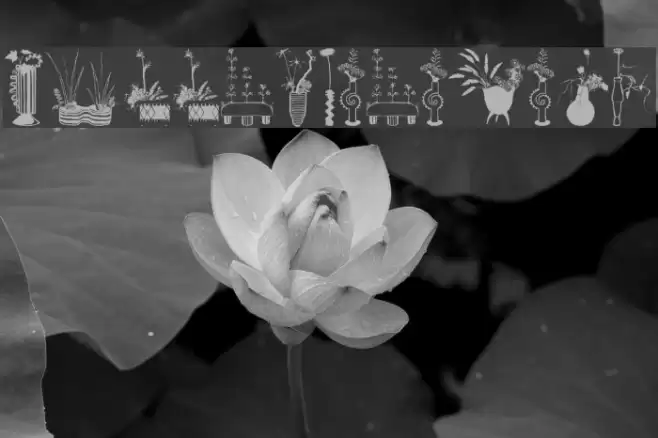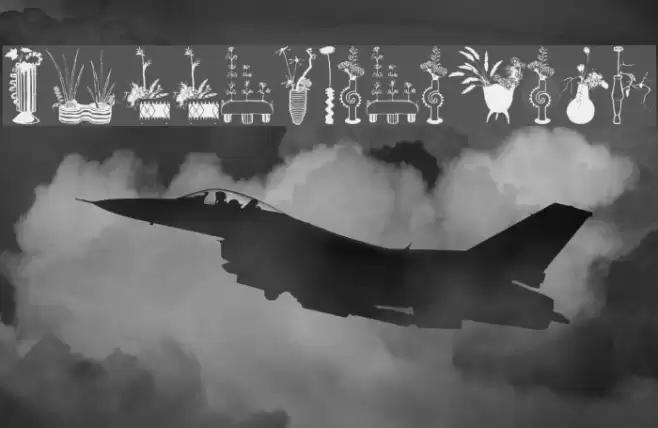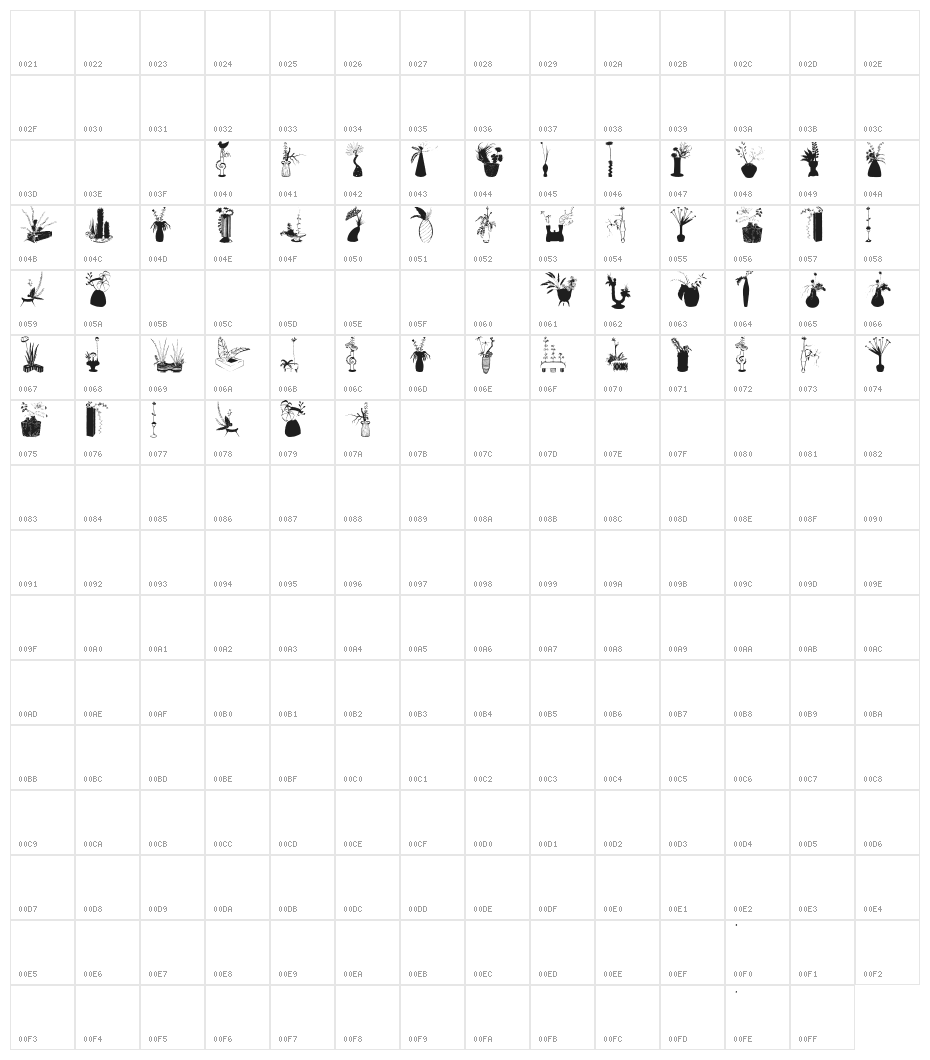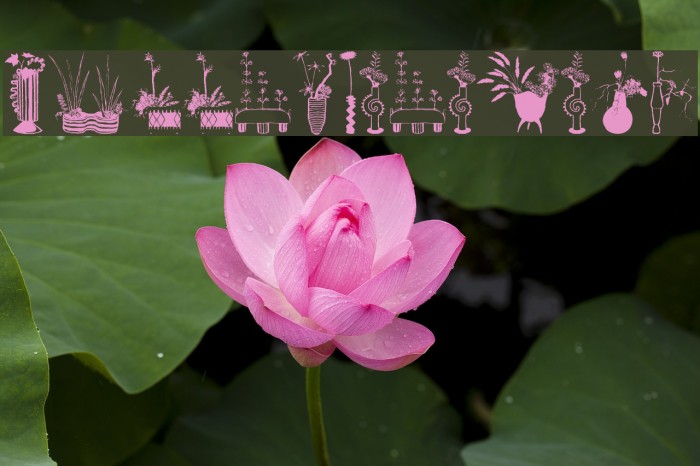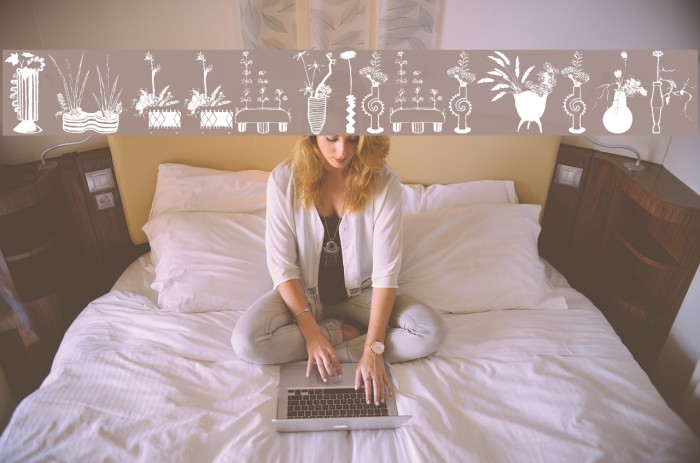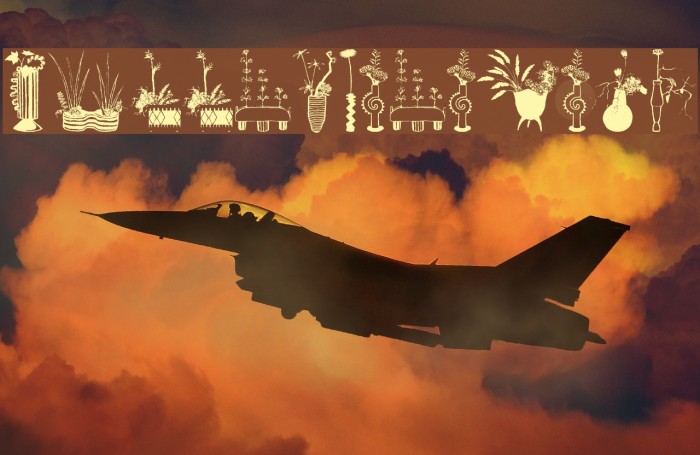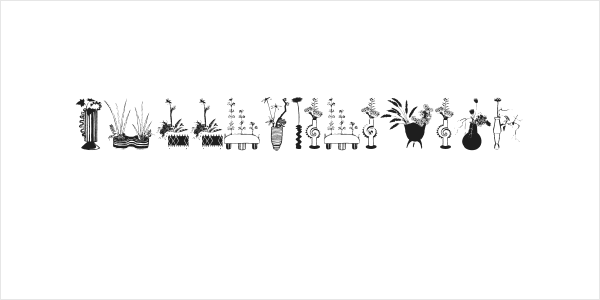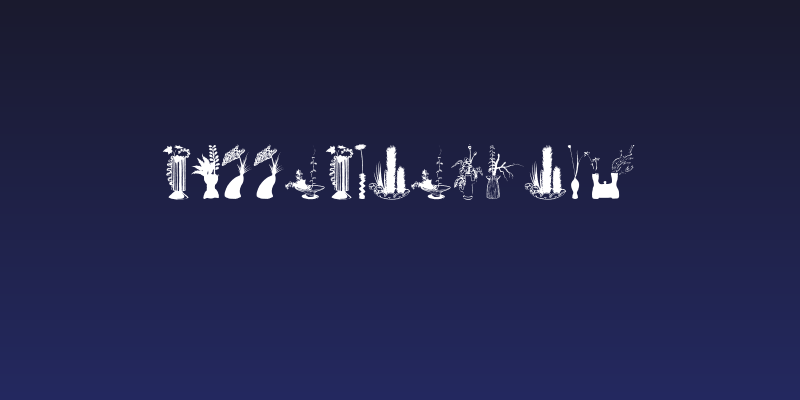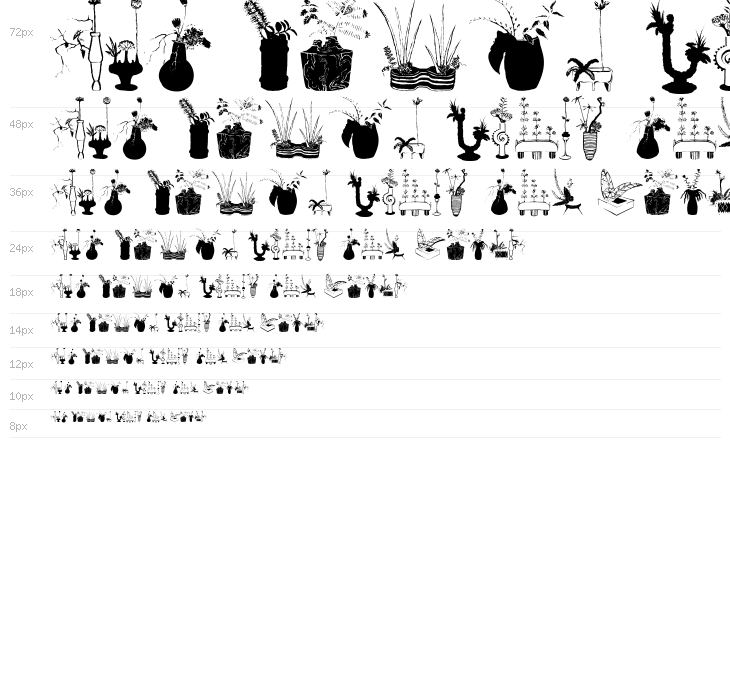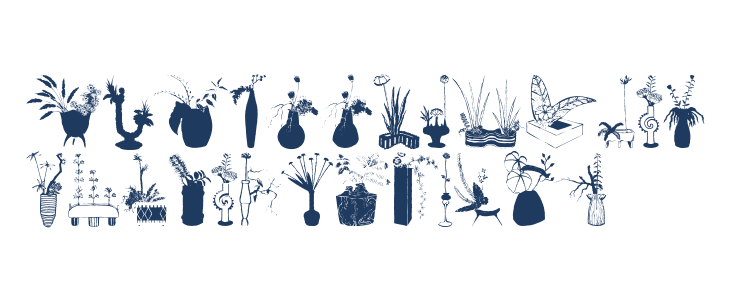
NipponFlorales Font
NipponFlorales Description
A highly decorative and illustrative font featuring intricate floral and botanical arrangements in place of standard letterforms, each character resembling a unique vase or plant composition.
Ornate, botanical-themed decorative font with floral illustrations from Uncategorized fonts.
- Proposed Projects: Art posters, greeting cards, event invitations, branding for florists, decorative headlines.
- Overall Style: Decorative, Artistic, Botanical
- Use Case: Logos, Headlines, Posters, Artistic projects